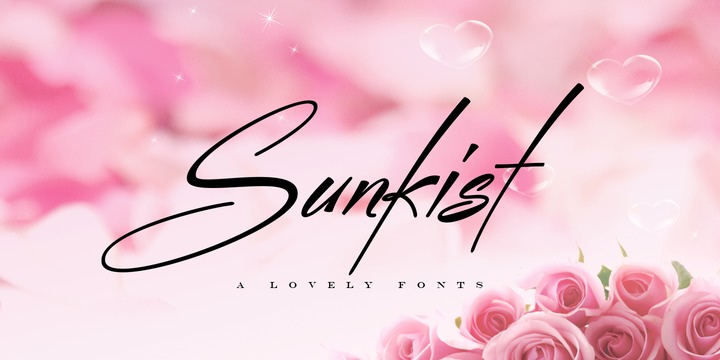
Sunkist Font
Sunkist Font is perfect for fresh juice branding, citrus product packaging, sunny café signage, tropical beverage marketing, vitamin supplement labels, organic food campaigns, summer festival promotions, healthy lifestyle branding, and vibrant wellness communications.
What makes Sunkist Font exciting is its radiant cheerful character combined with fresh citrus energy that instantly evokes sunshine, vitamin-rich goodness, and healthy living experiences. The font's bright, energetic letterforms and zesty visual appeal deliver invigorating freshness while maintaining excellent legibility, making it the ideal choice for health and wellness brands seeking to communicate natural vitality, pure nutrition, and sunny optimism to health-conscious consumers.
Sunkist Font family includes multiple weights with citrus-inspired decorative elements, sunshine flourishes, and fresh styling variations, providing comprehensive design solutions for creating authentic health food branding and vitamin-focused marketing across natural wellness industry applications.
This vibrant typeface captures the essence of pure citrus sunshine and natural wellness in every energetically crafted letterform. Sunkist Font Free Download presents health food companies and wellness brands with an exceptional opportunity to develop visual identities that resonate with consumers seeking natural nutrition and healthy lifestyle choices. Whether you're launching organic juice brands, designing vitamin supplement packaging, or creating wellness lifestyle campaigns, this font family delivers the fresh vitality needed to attract health-conscious audiences in competitive natural products markets.
The sunny character energy and citrus-inspired details create instant appetite for healthy choices while communicating natural purity and vitamin-rich benefits. Extensive fresh elements support engaging storytelling about natural nutrition and healthy living.
Sunkist Font distinguishes itself through its remarkable ability to communicate both health benefits and delicious taste simultaneously. This exceptional typeface doesn't just label healthy products—it creates craving for nutritious choices and sunny well-being, making it an invaluable asset for wellness brands competing in markets where natural health and delicious nutrition drive consumer purchasing decisions and lifestyle transformations.